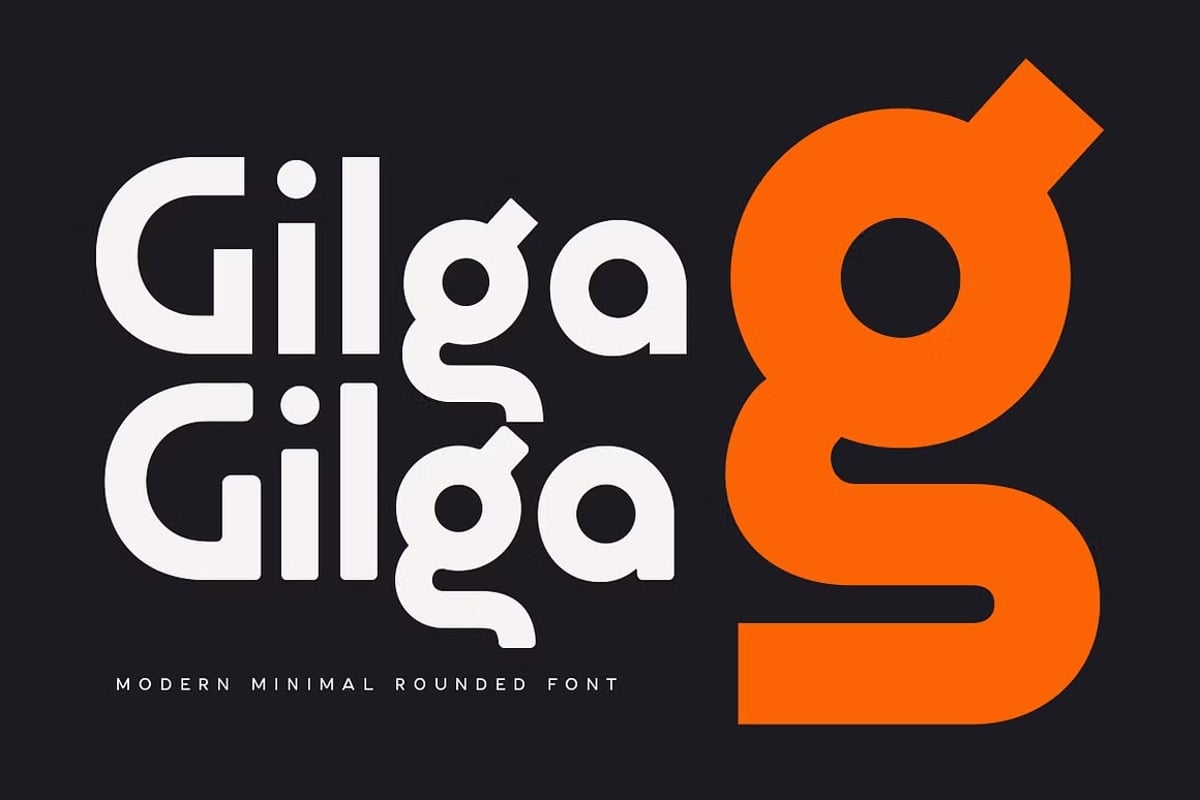
Gilga - Modern Minimal Rounded Font
Gilga delivers geometric precision with modern minimalism in this premium rounded sans serif font. This contemporary typeface combines clean geometric structure with softly rounded edges, creating a versatile font perfect for professional branding projects. The minimalist design approach ensures excellent legibility while maintaining a unique, premium aesthetic that stands out across all applications. Ideal for logo design, poster creation, social media content, advertising campaigns, product pa...